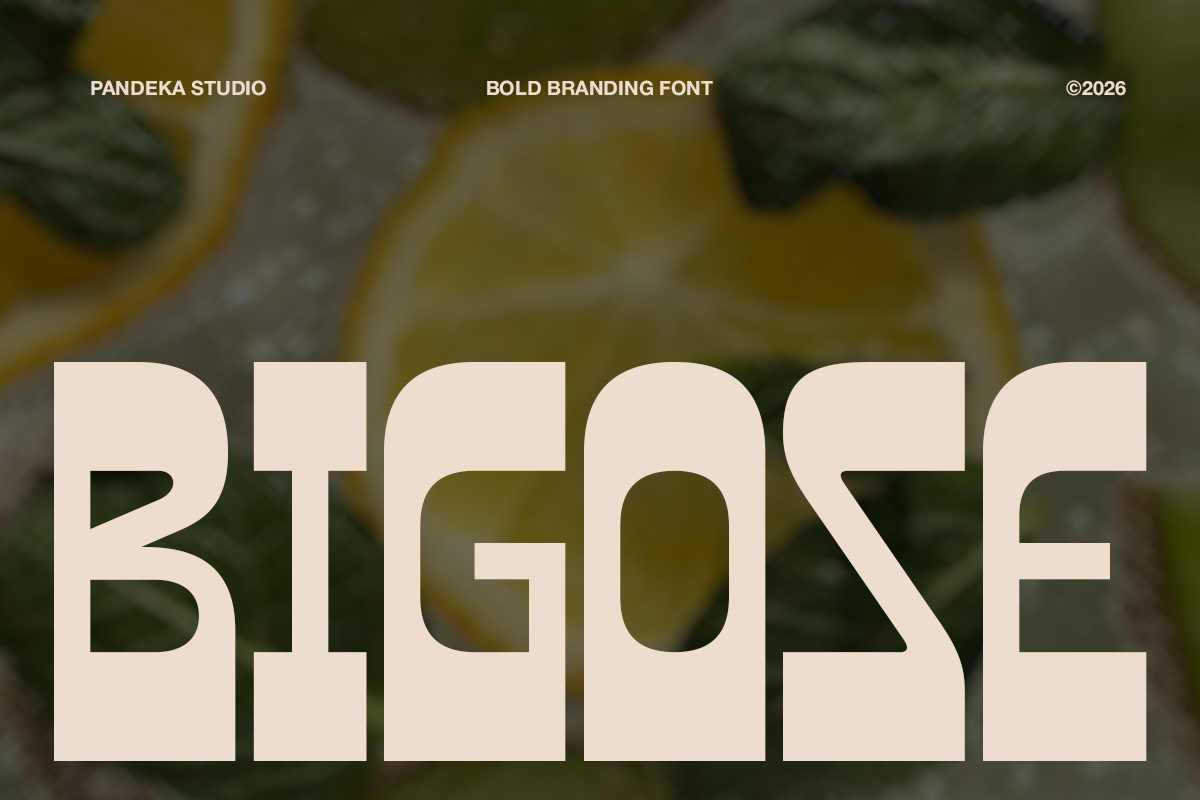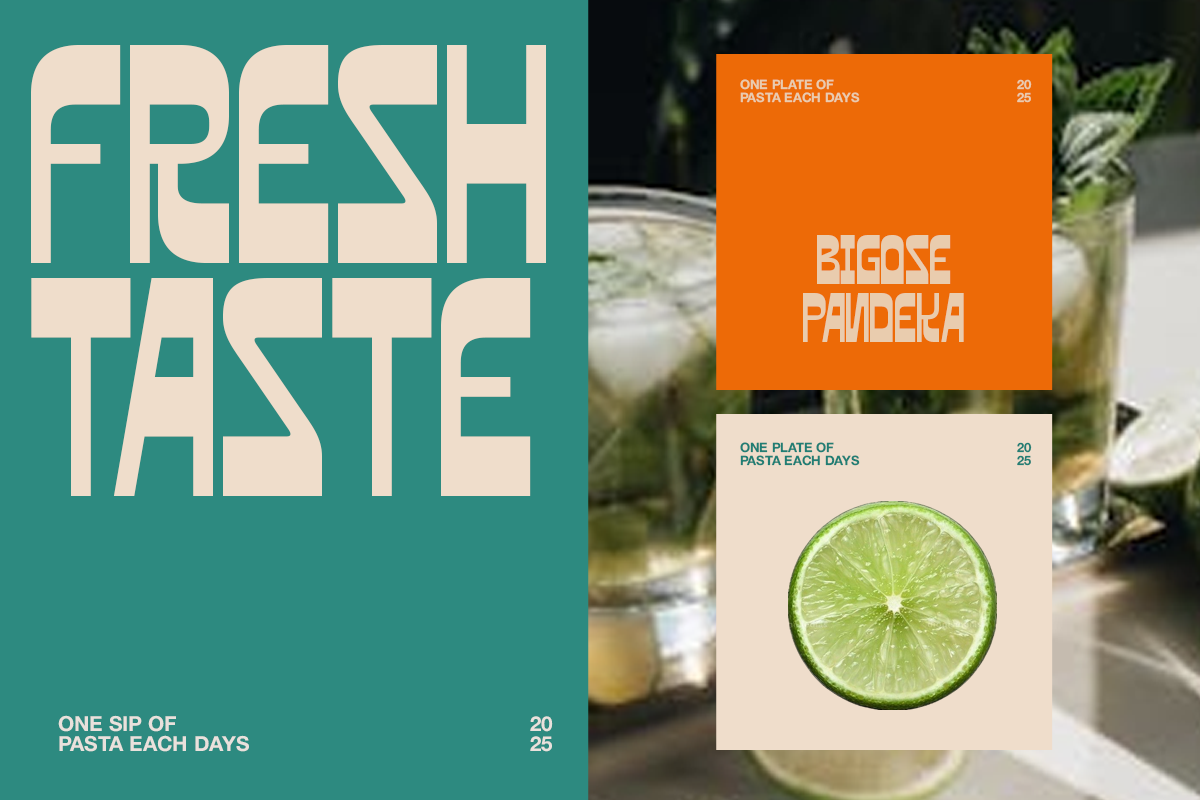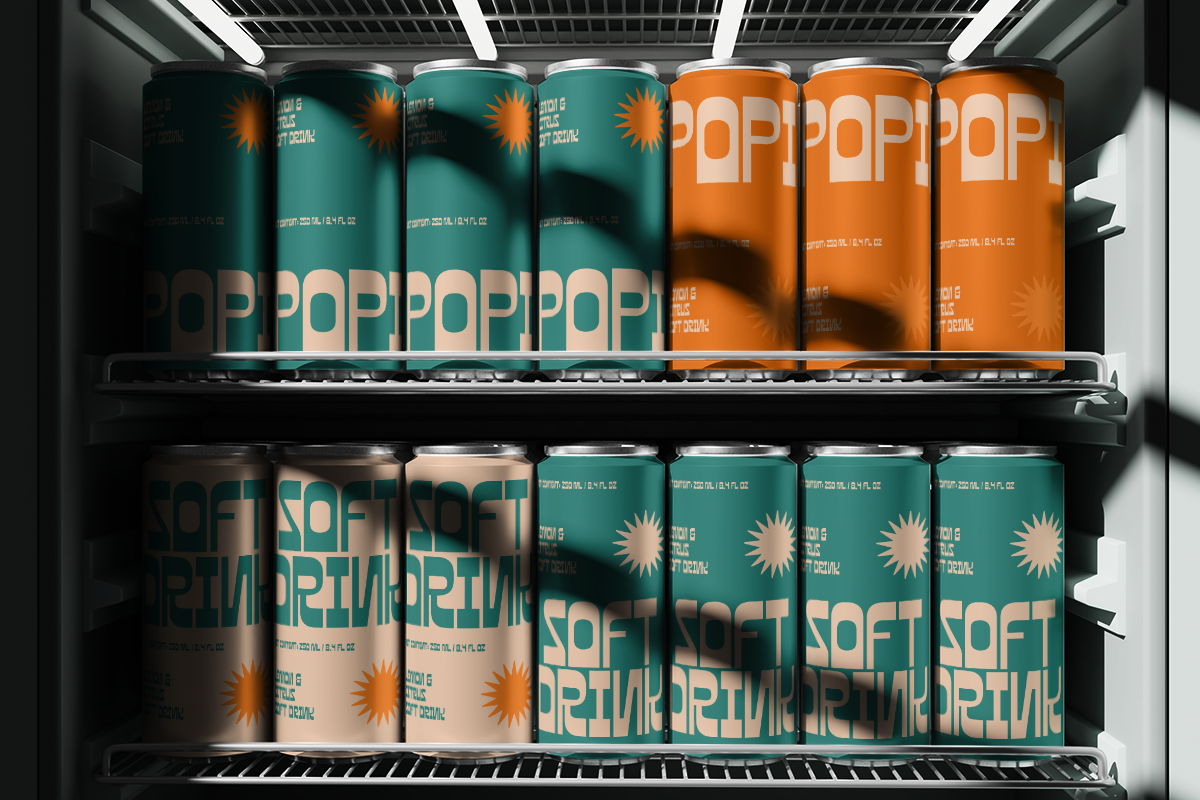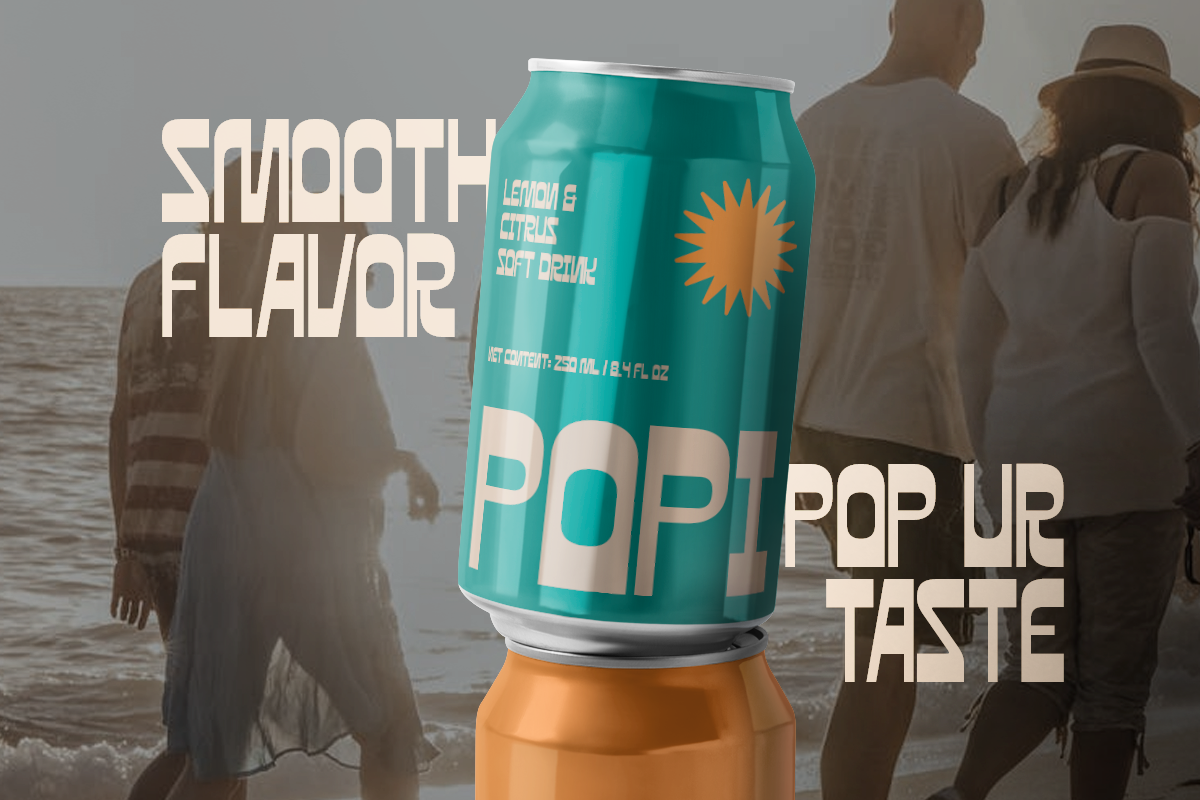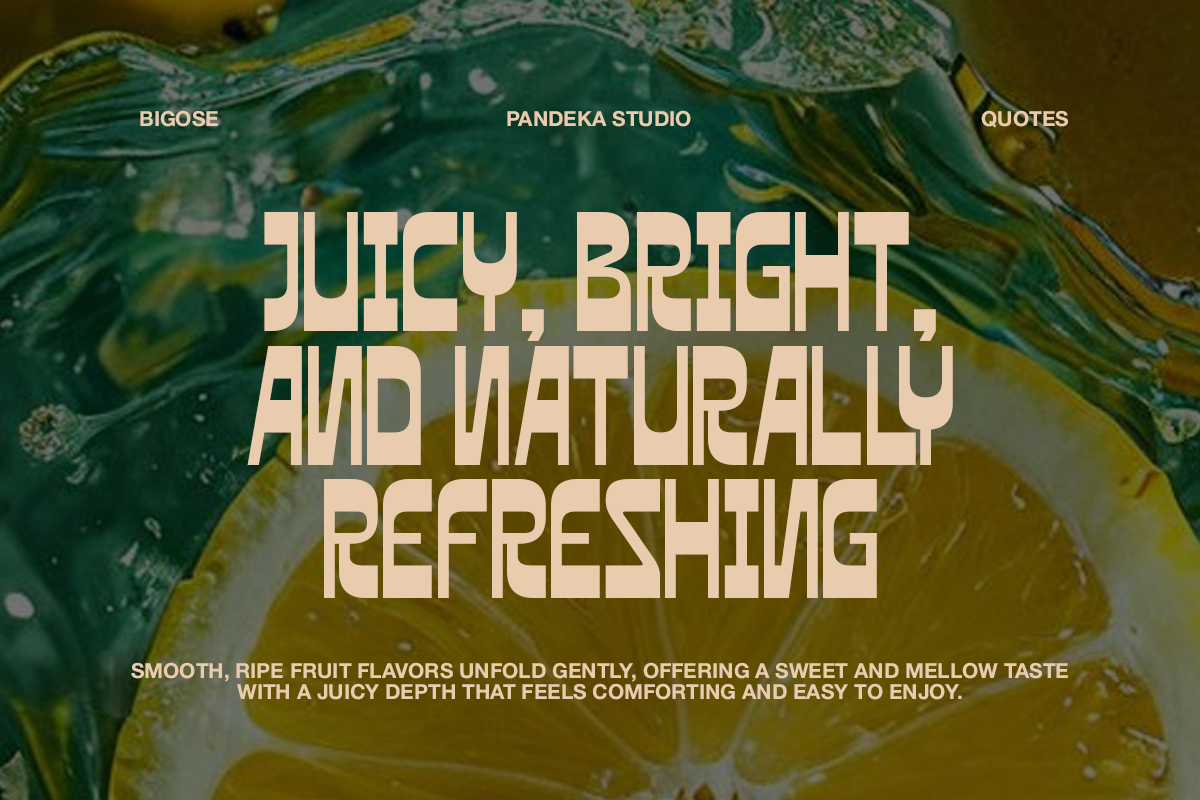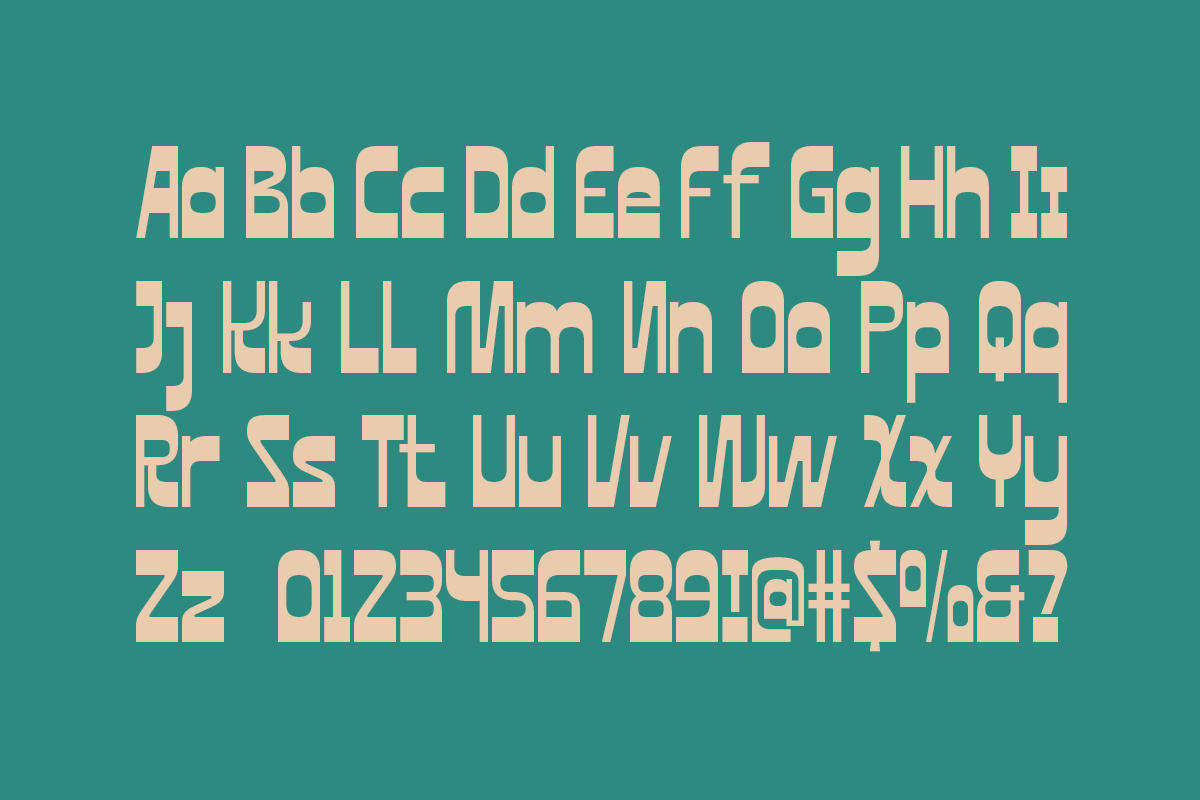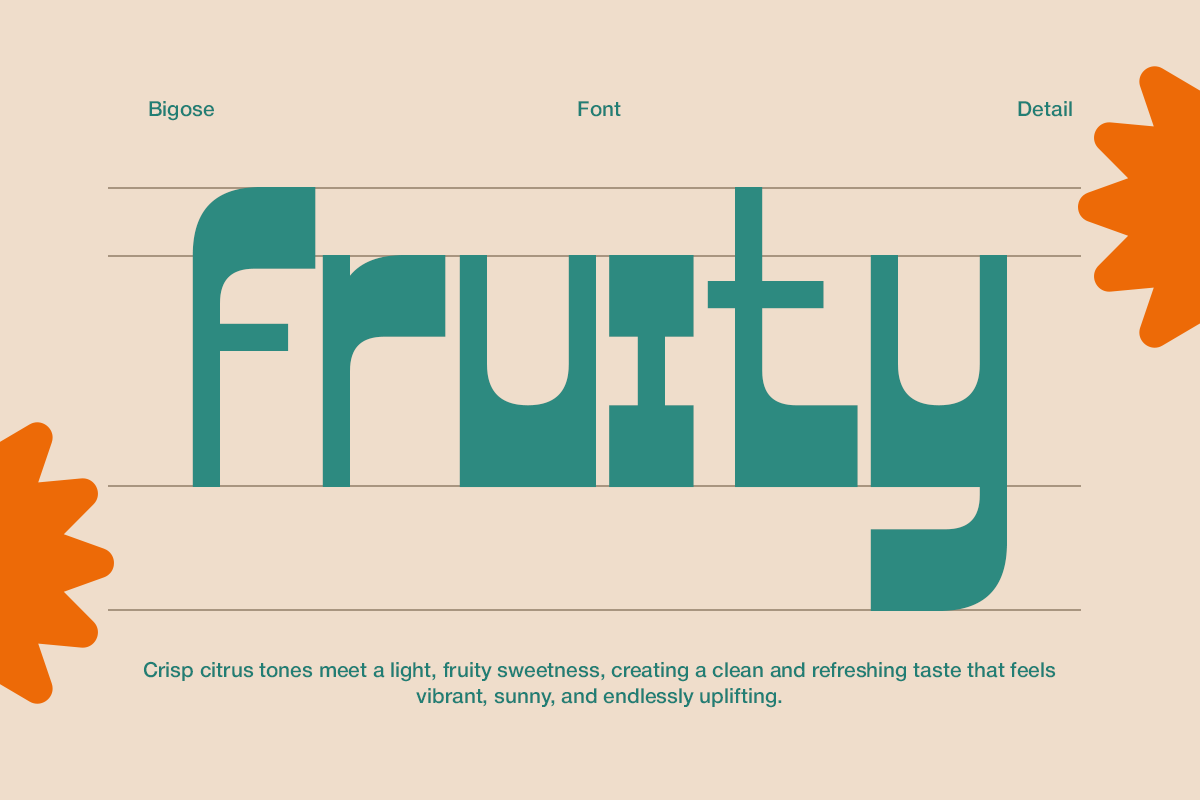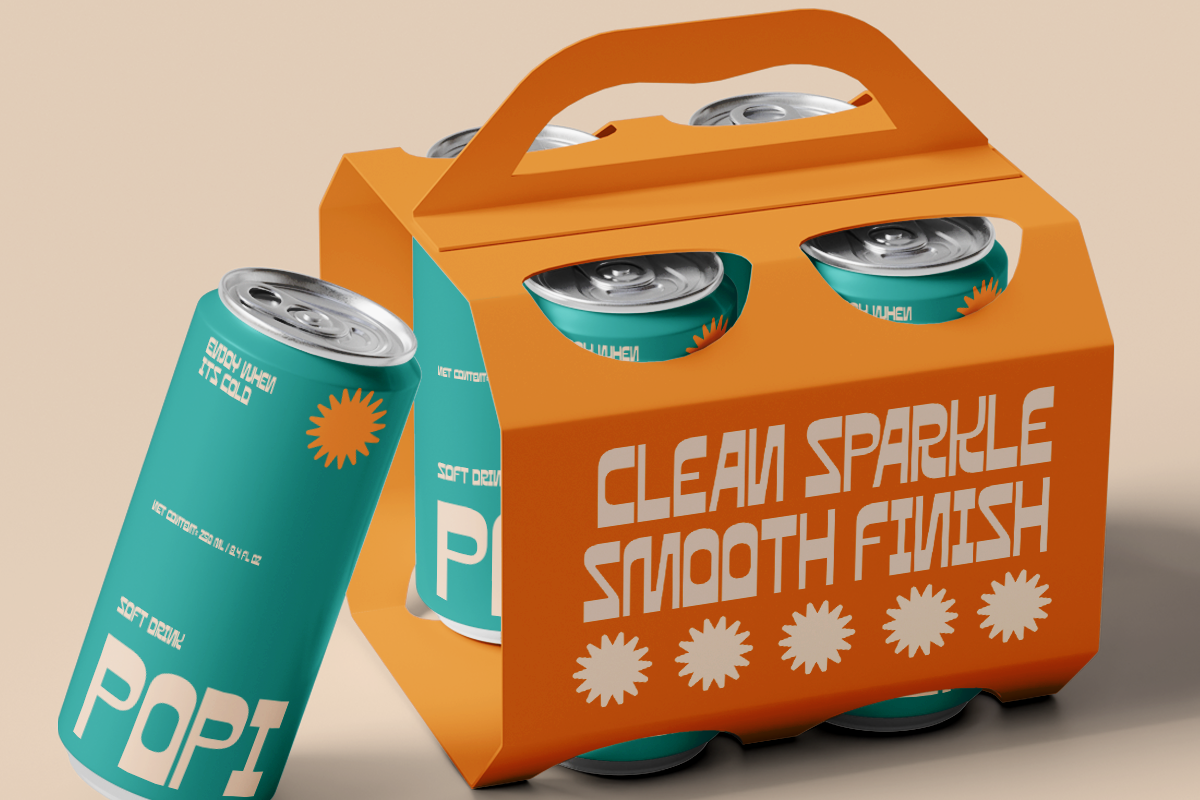
Bigose - 3 Bold Branding Font
Bigose is a bold and energetic branding font designed to deliver strong visual impact with a fresh and modern personality. Its chunky letterforms, clean geometry, and friendly curves make it perfect for beverage packaging, food branding, product labels, posters, and eye-catching marketing visuals. Bigose brings a vibrant and confident tone that helps brands stand out in competitive retail and digital spaces.
This font comes in 3 styles: Regular, Outline, and Shadow, allowing designers to create depth, contrast, and layered typography with ease. It also includes 3 alternates to add subtle variation and flexibility in letter combinations. Ideal for logos, packaging, signage, social media graphics, and promotional designs, Bigose delivers bold readability, playful character, and strong brand presence across all creative applications.
- 3 Style: Regular, Outline, and Shadow
- Full Character Set: Uppercase, lowercase, numbers, symbols, and punctuation
- 3 Stylistic Alternate